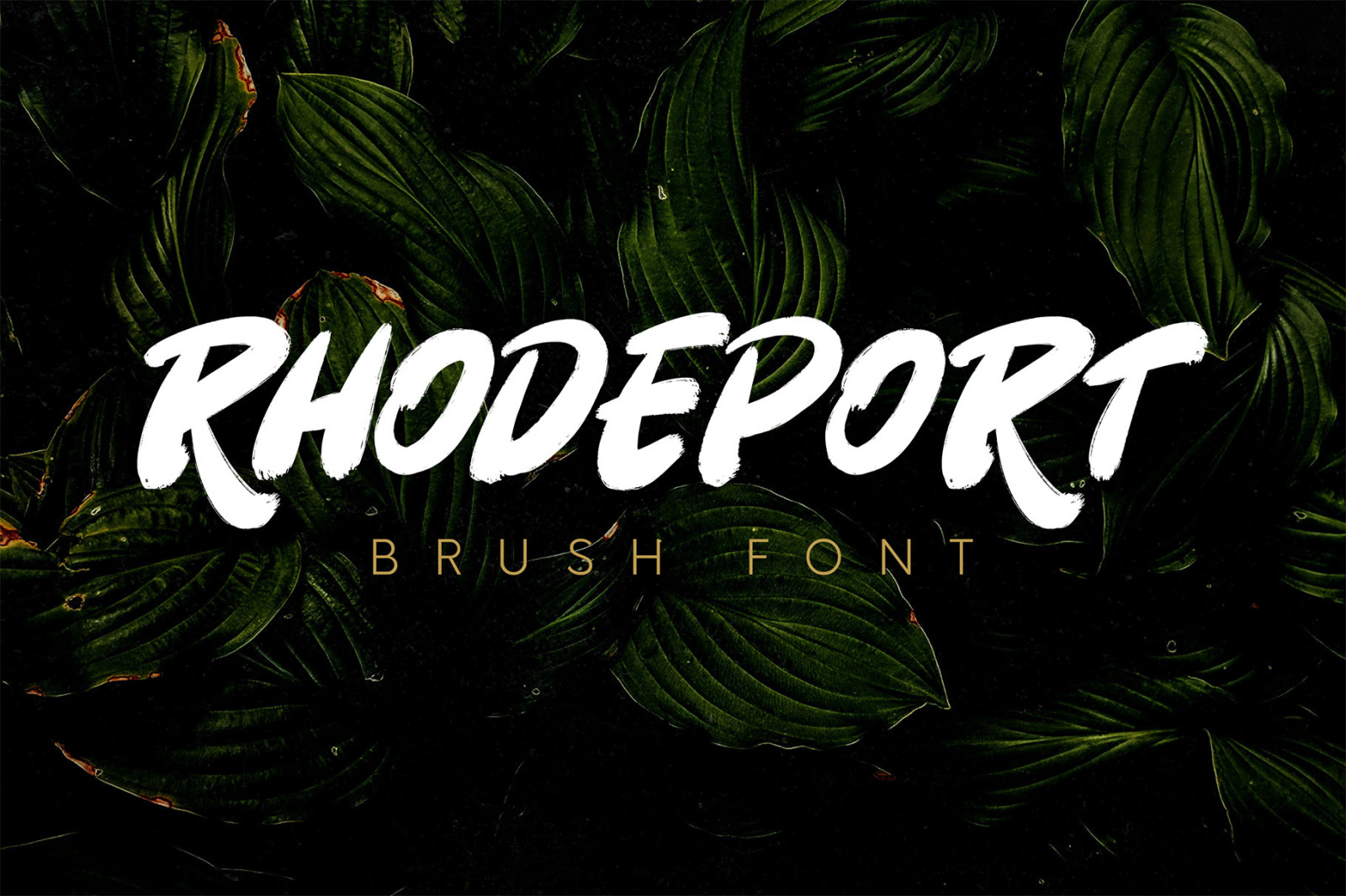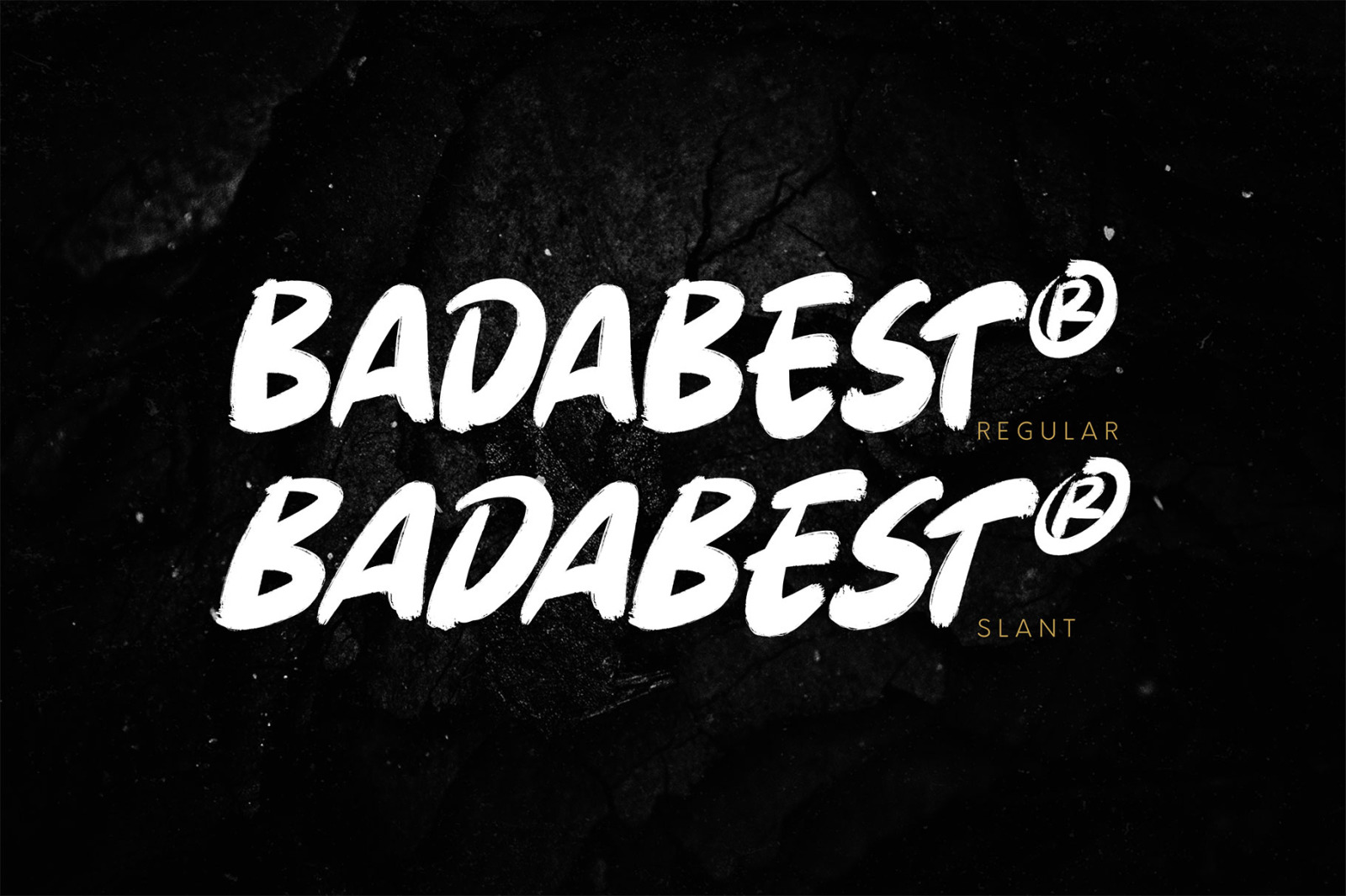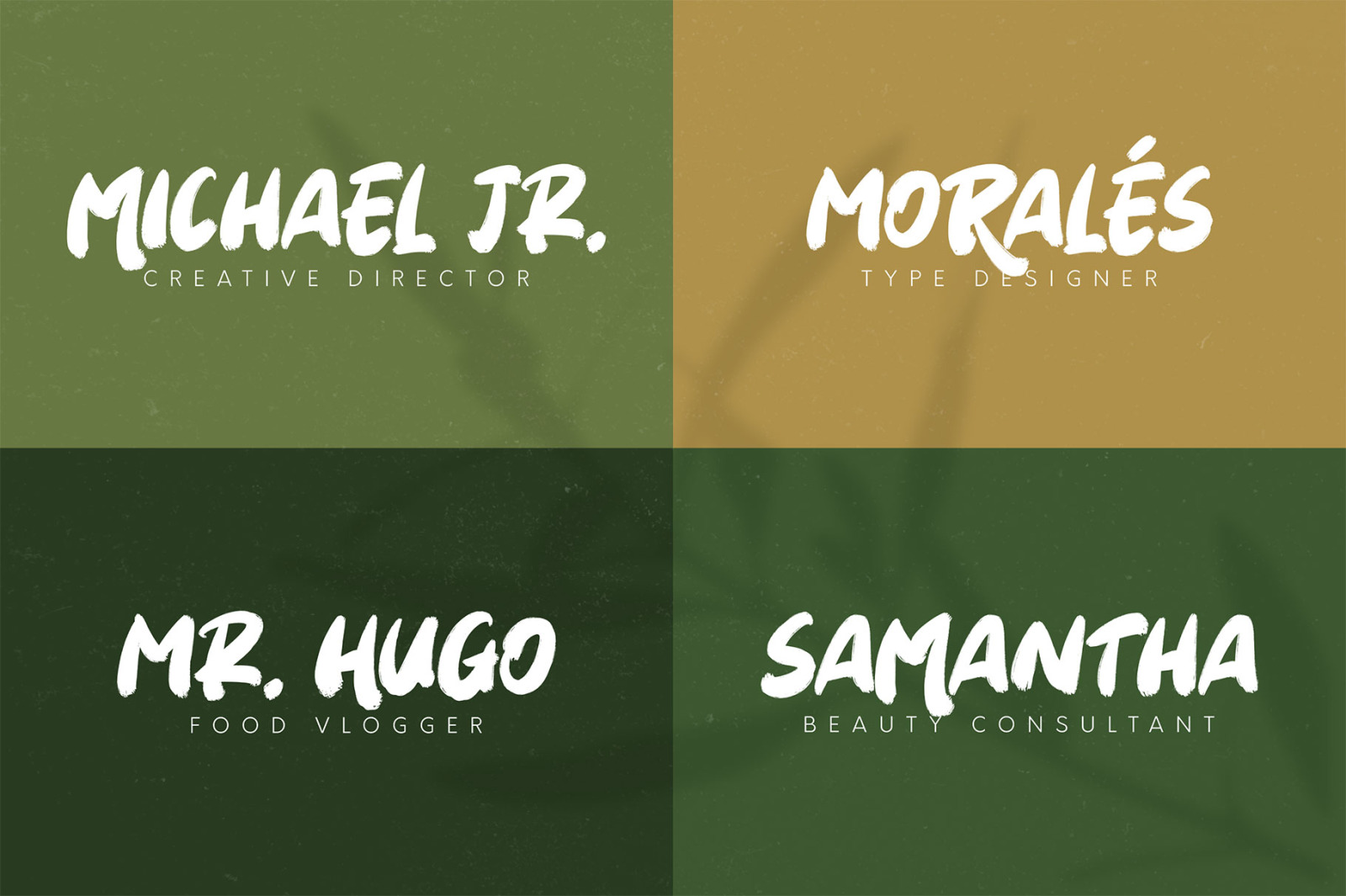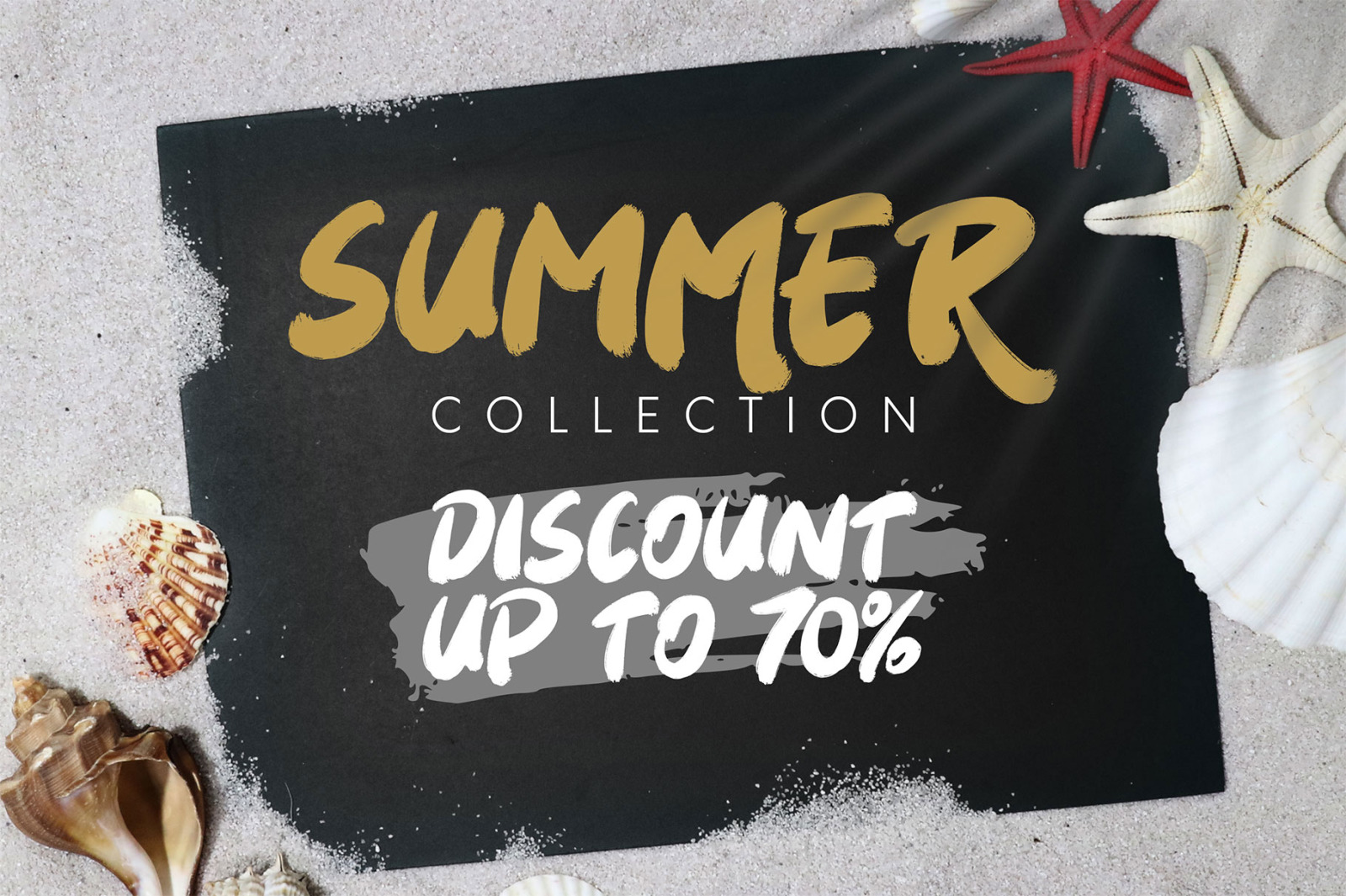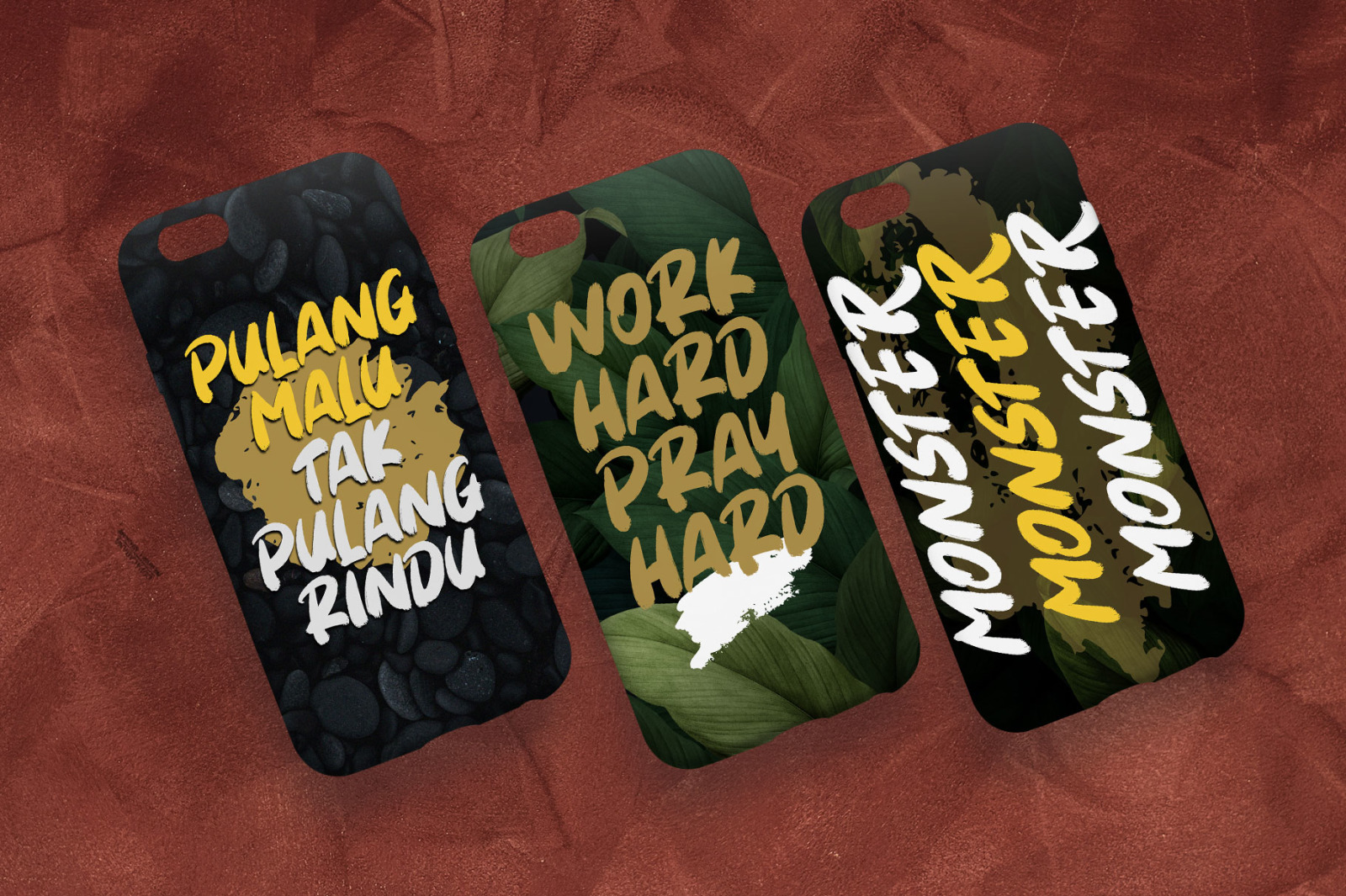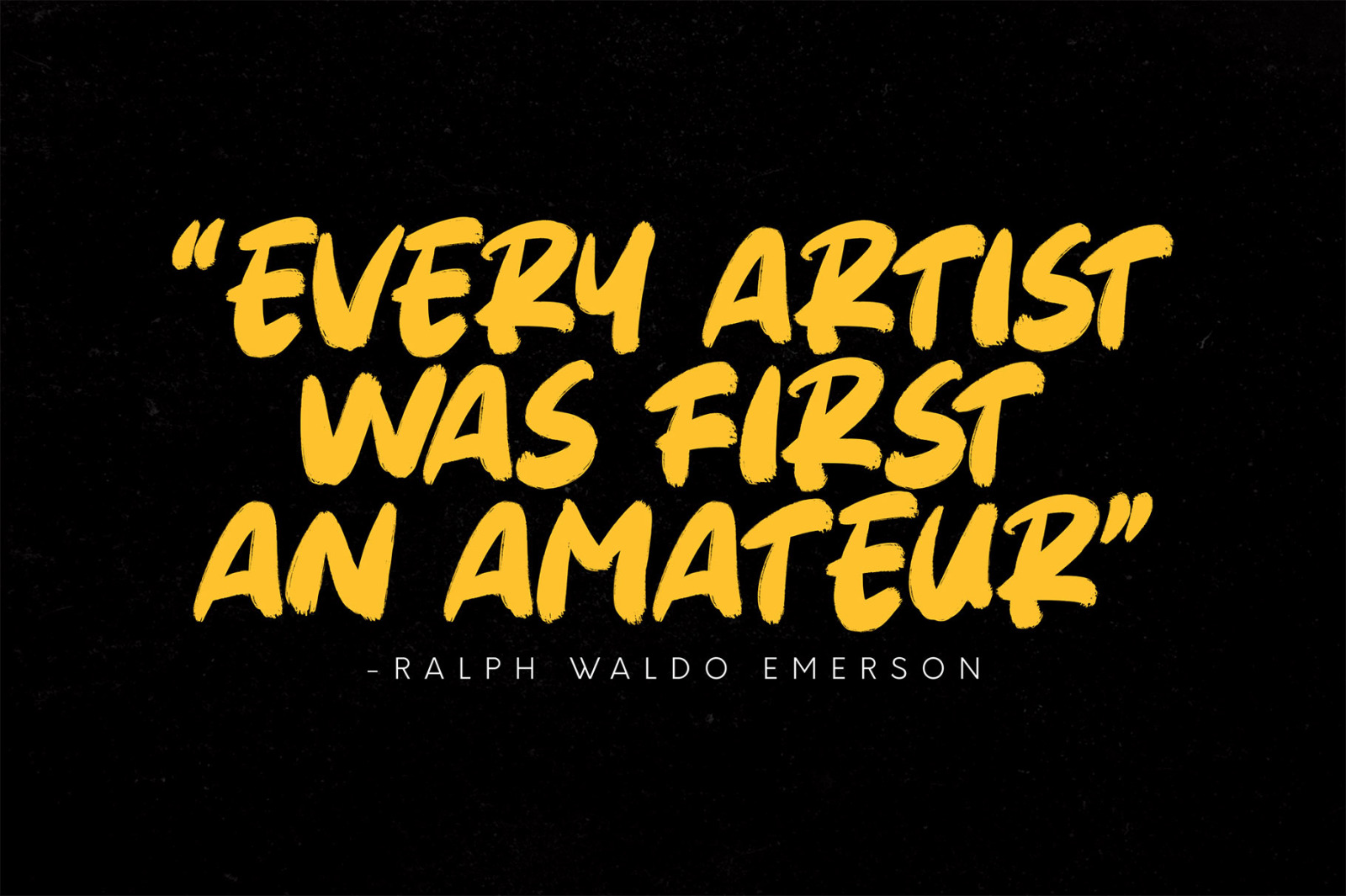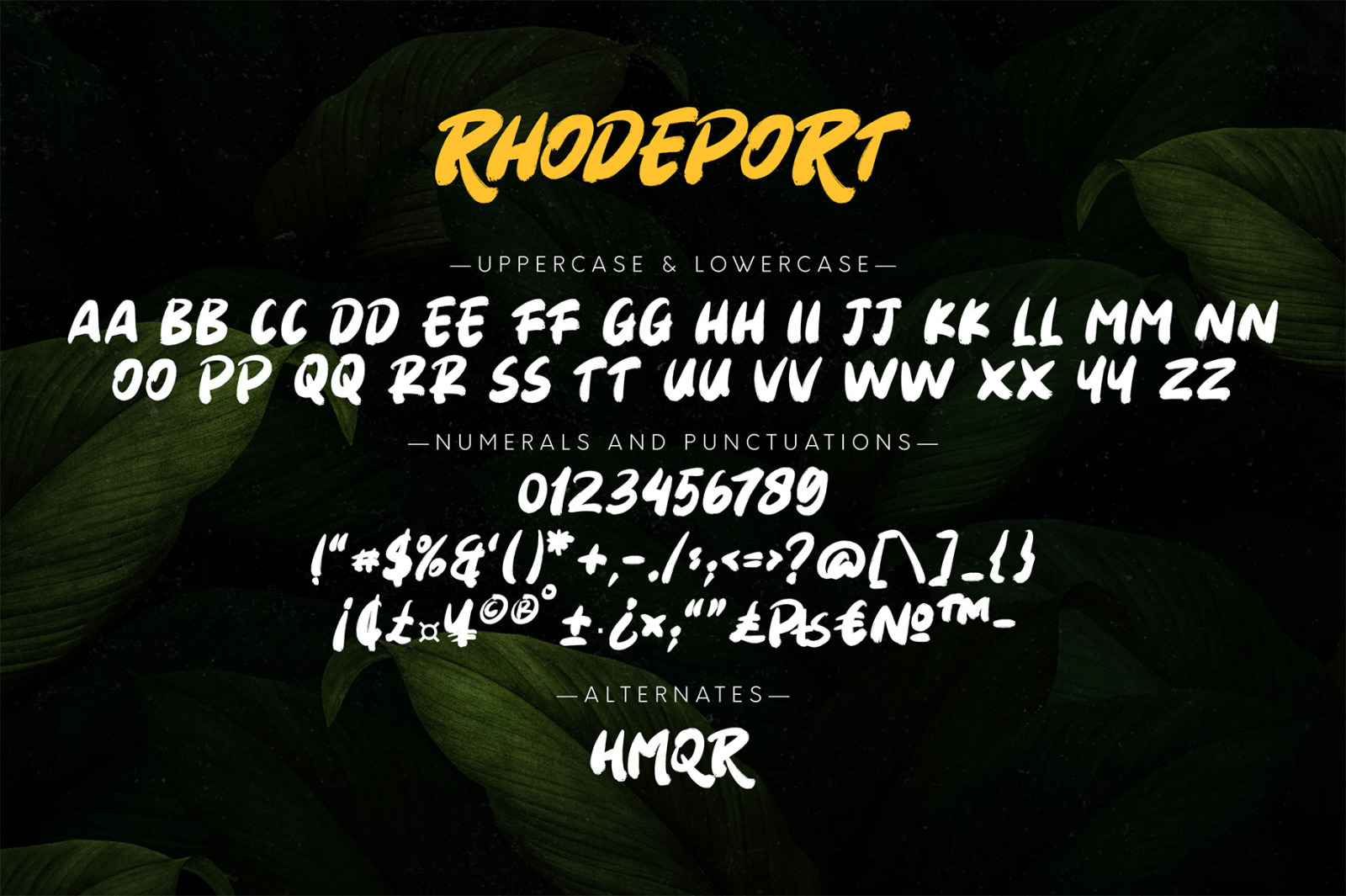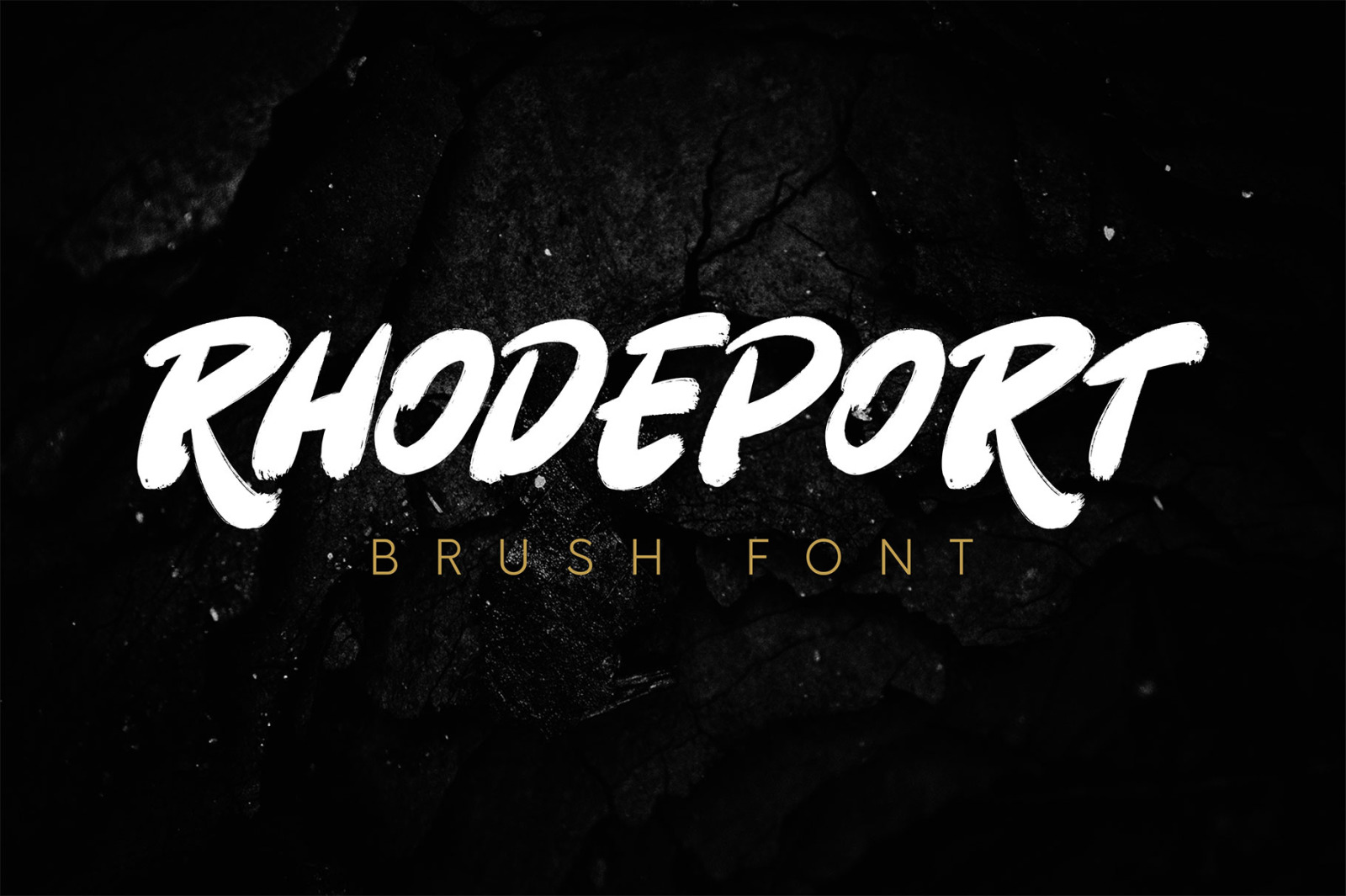
Rhodeport - Brush Font
Rhodeport! A handbrush font with all uppercase glyphs, regular and slant. Genesiss font is suitable for branding, logotype, apparel, T-shirt, Hoodie, product packaging, quotes, flyer, poster, advertising, etc.
1. Uppercase characters
2. Multilingual support.
3. Numerals, punctuations, and alternates